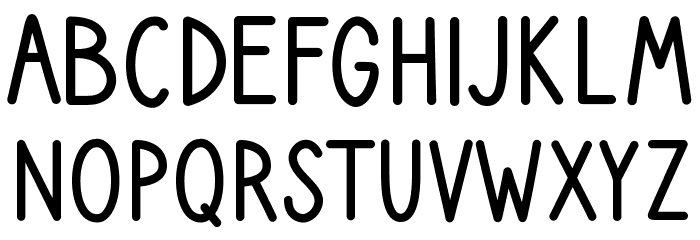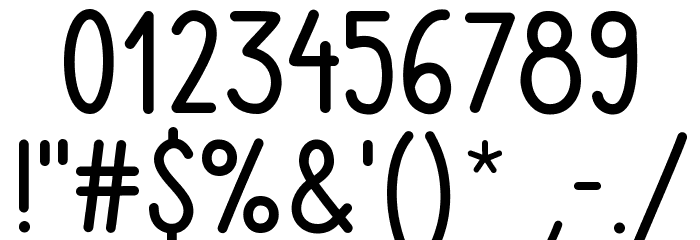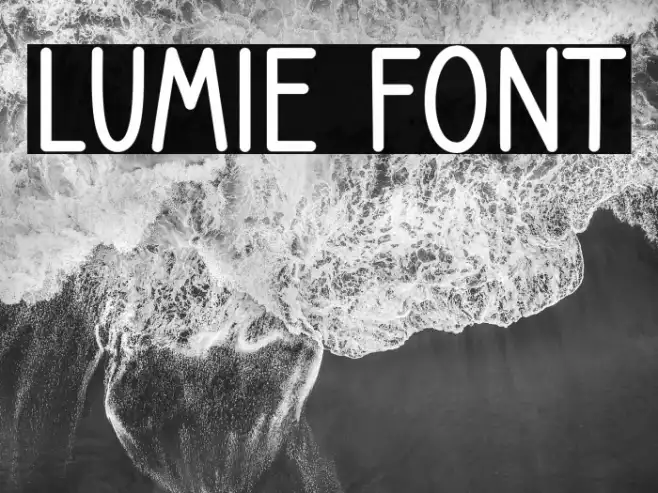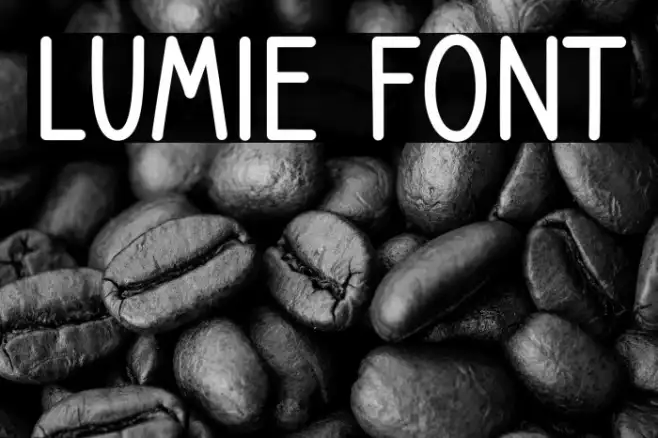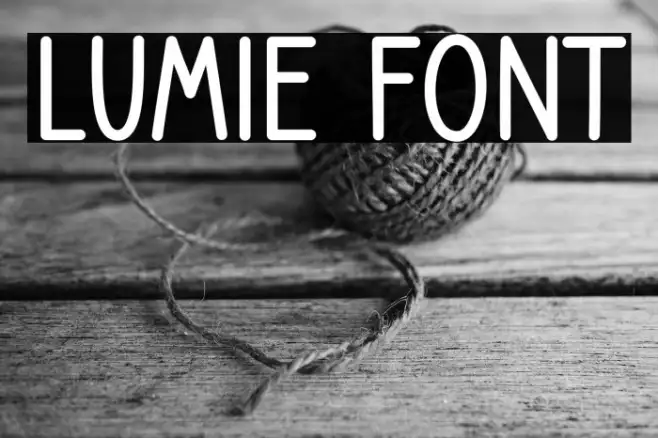
Lumie Font
This font features a playful and casual style with rounded edges and a hand-drawn appearance. The characters are evenly spaced, providing a clean and approachable look. The uppercase and lowercase letters maintain a consistent height, contributing to its uniformity. The numbers are clear and legible, matching the overall aesthetic. Special characters are included, enhancing its versatility for various uses. Its simplicity and charm make it suitable for informal and friendly designs.
A playful, hand-drawn font with rounded edges and consistent spacing.
- Proposed Projects: Ideal for children's books, casual invitations, greeting cards, and playful branding.
- Overall Style: Casual
- Use Case: Headlines, Logos, Informal Text